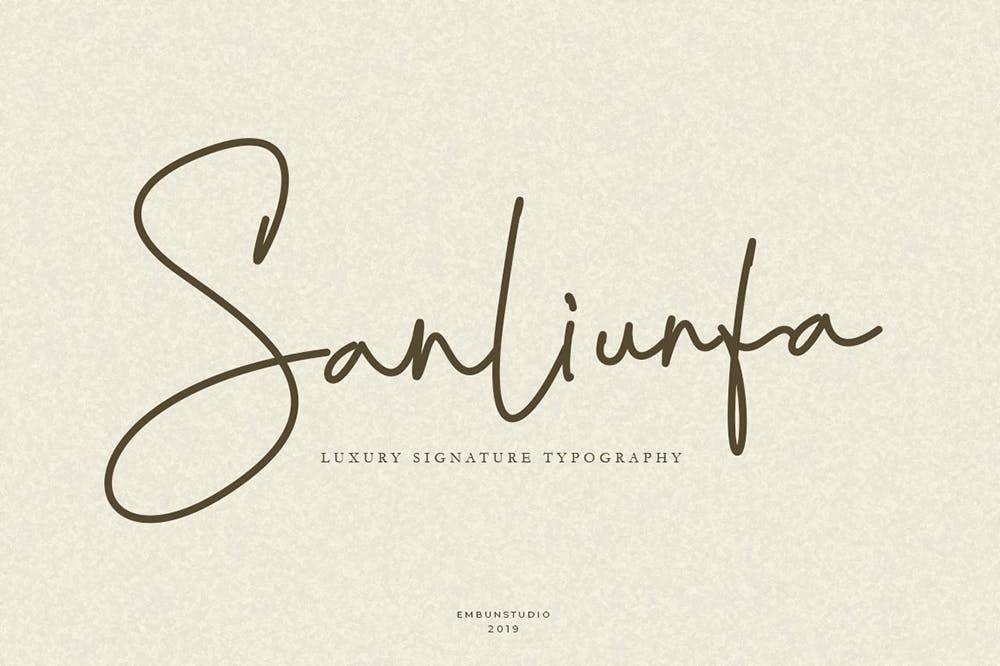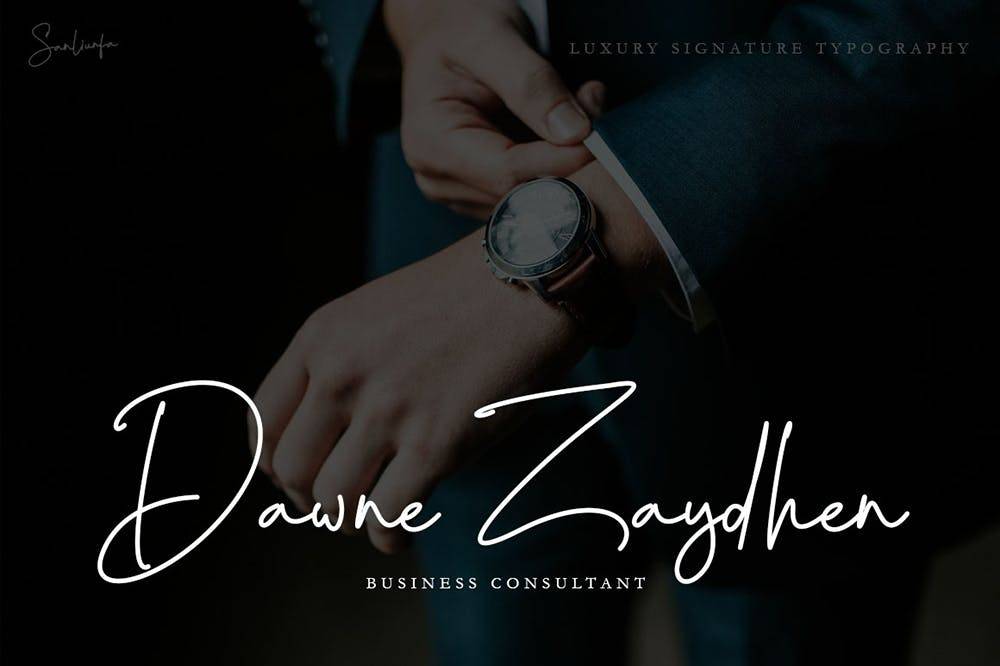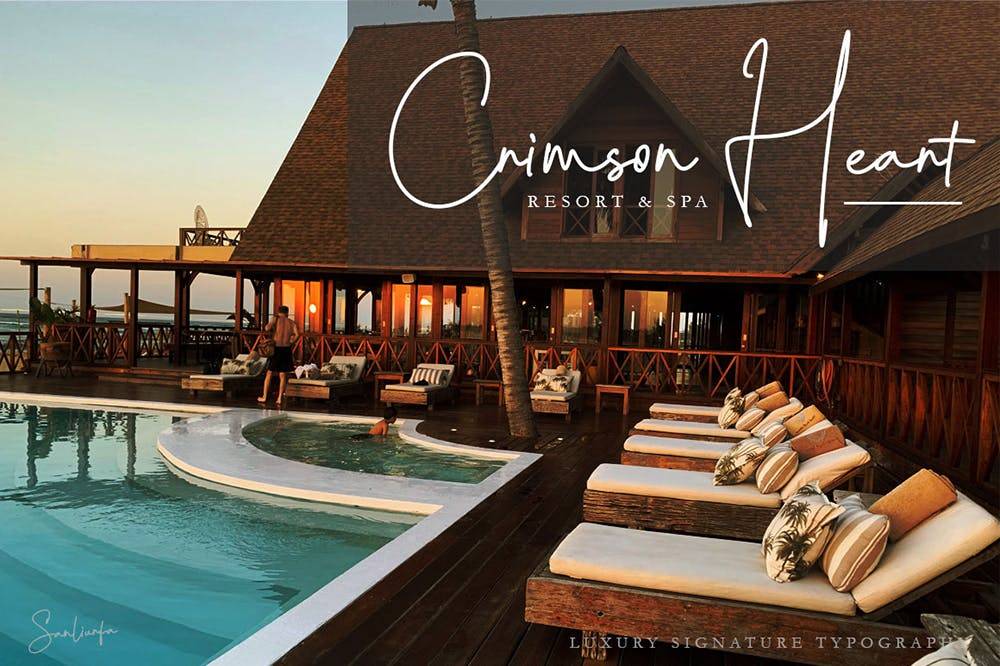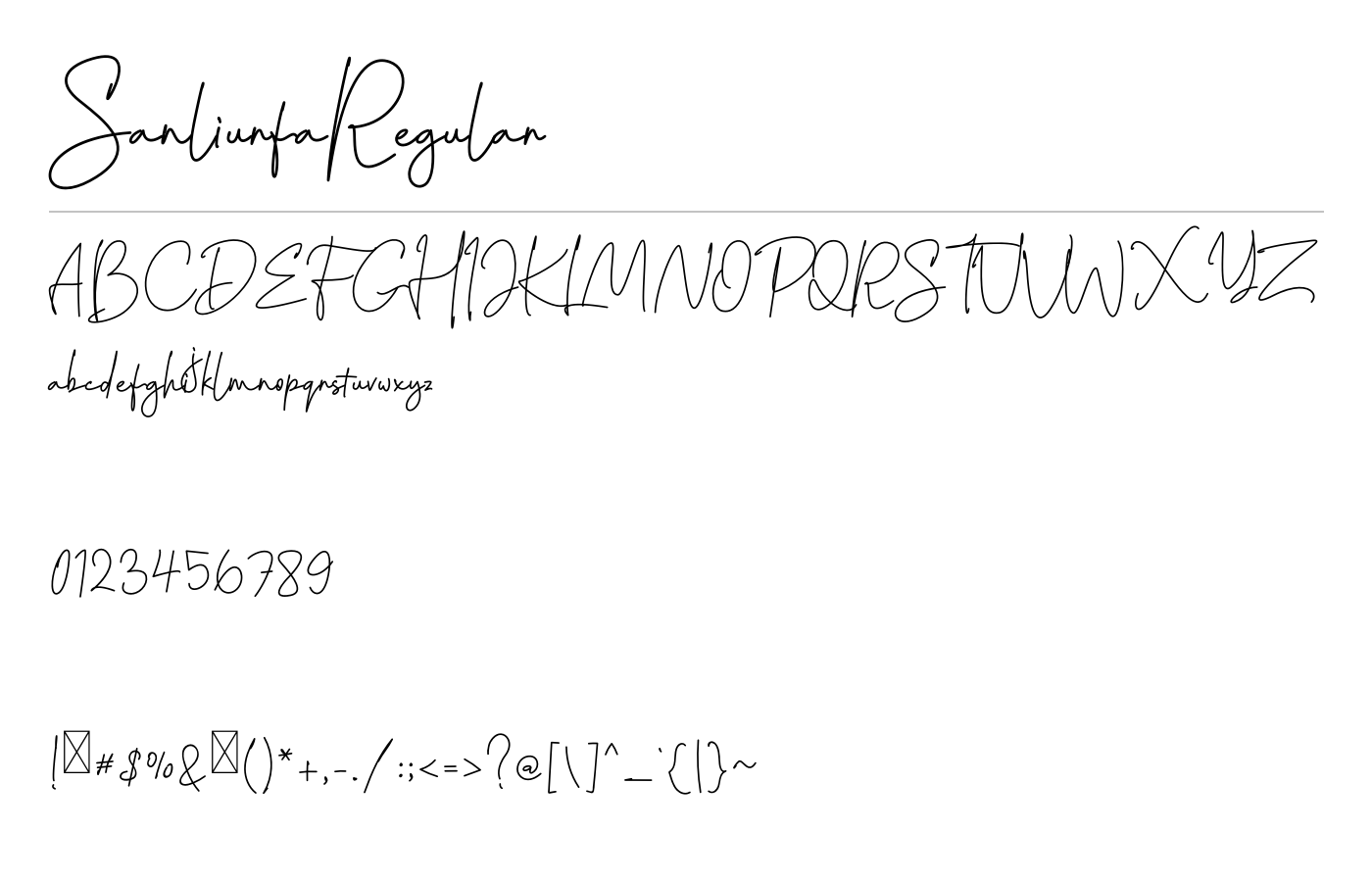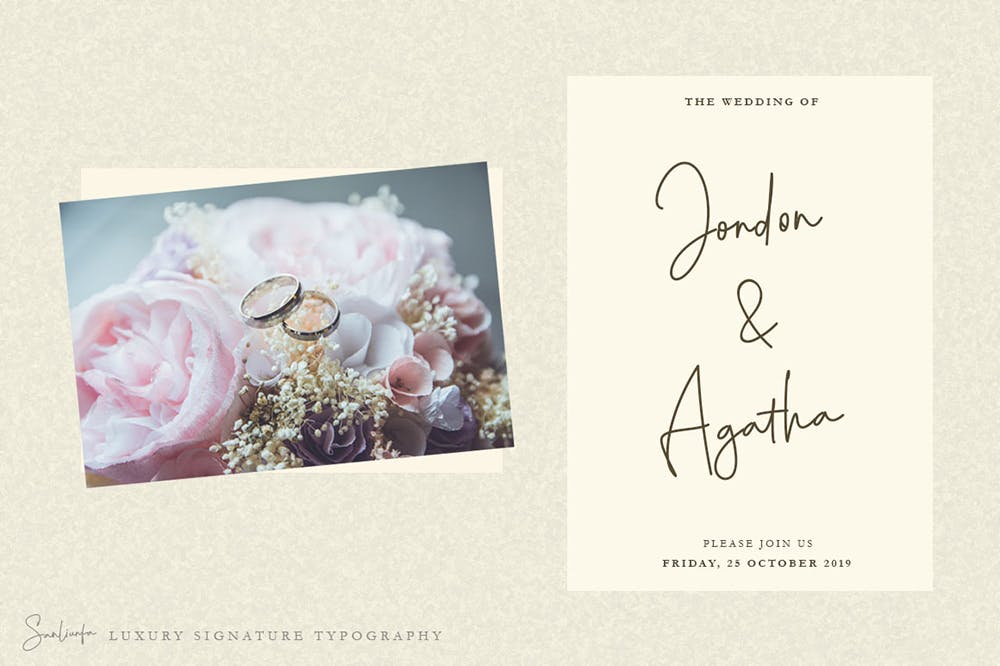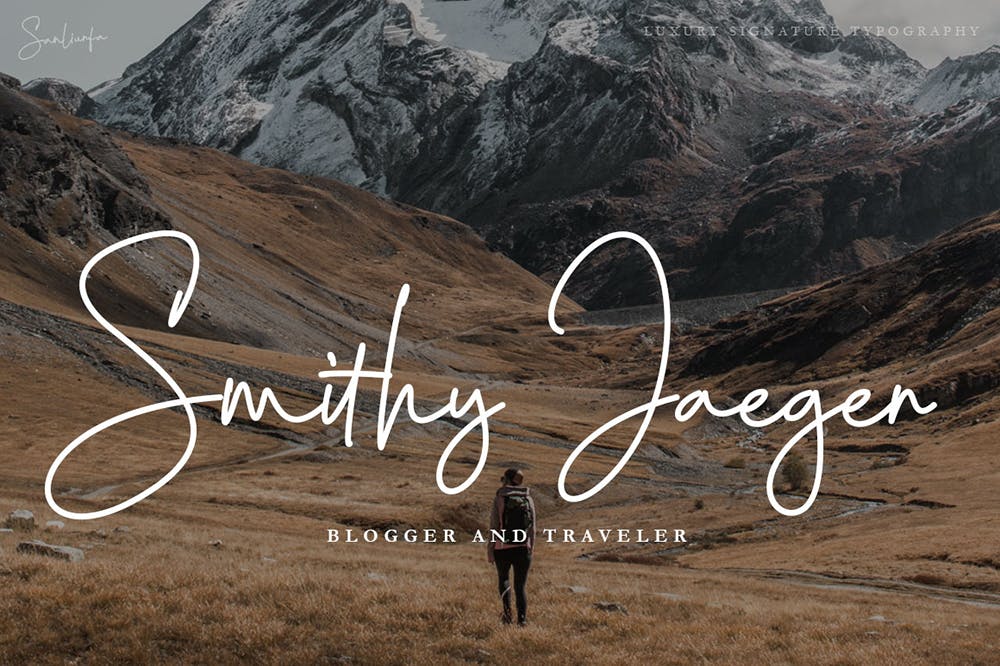
Sanliurfa Luxury Signature is an elegant, handwritten script font featuring thin, delicate strokes with a tall x-height and a casual yet refined feel. Its slender, flowing letterforms create a sophisticated and personal touch, making it ideal for luxury branding, wedding invitations, and stylish logos where a modern, graceful signature style is desired. This font’s airy spacing and smooth curves lend a sense of exclusivity and charm that works well in high-end design contexts.
Sanliurfa Luxury Signature Font
About Sanliurfa Luxury Signature Font
| Font family | Sanliurfa Luxury Signature Font |
| Release date | 2019-10-17 |
| Designer | aditya rezki |